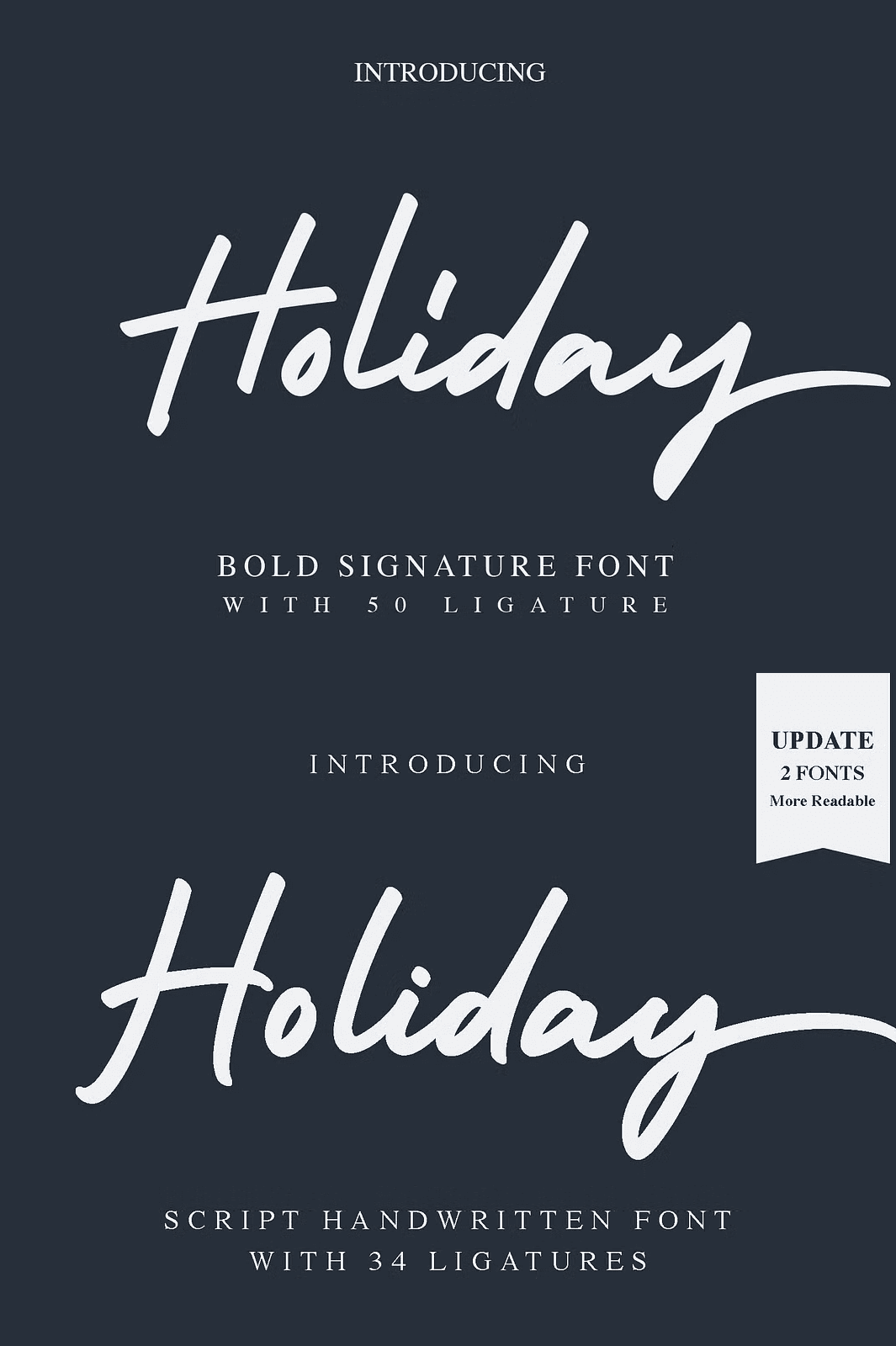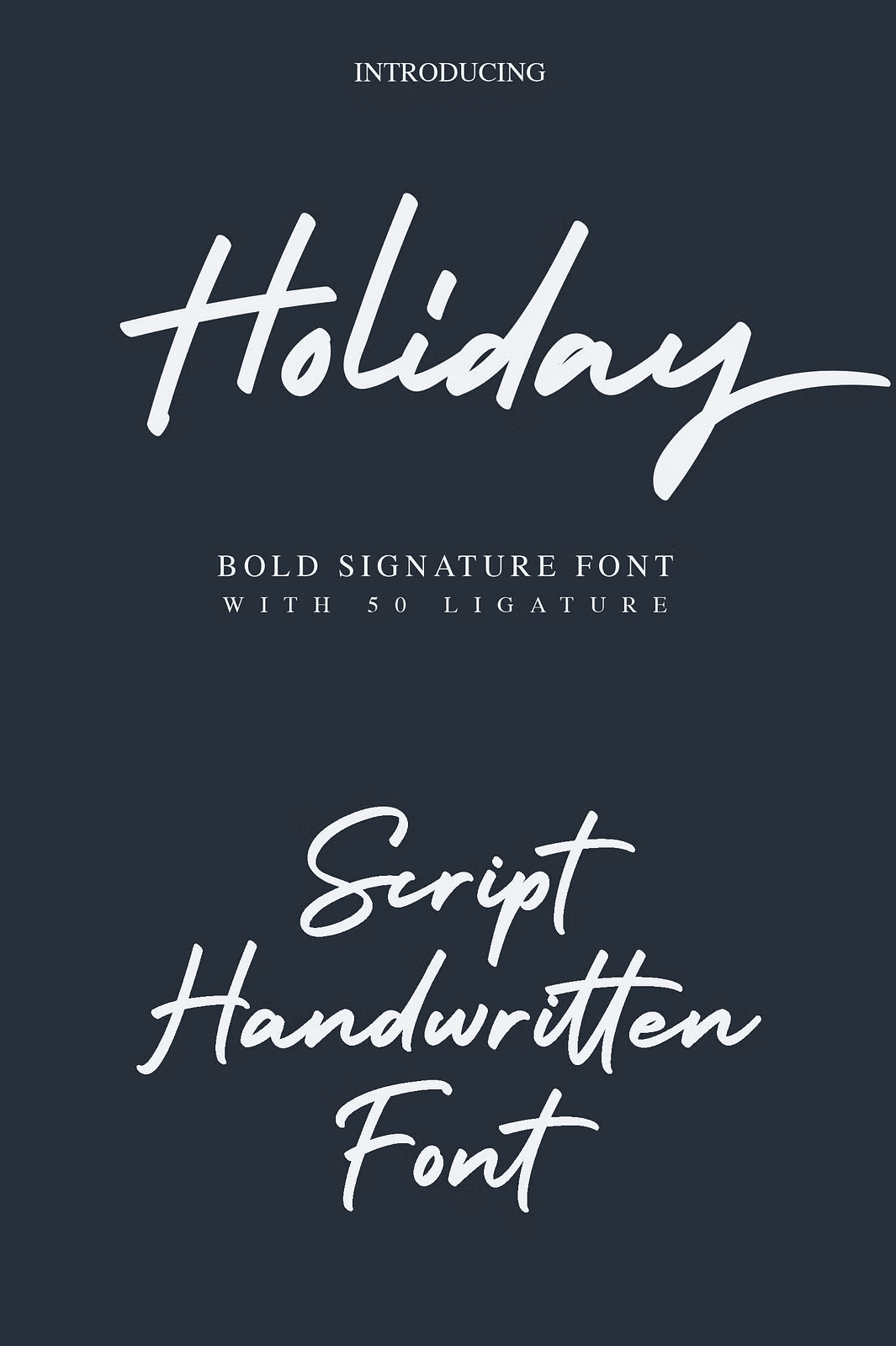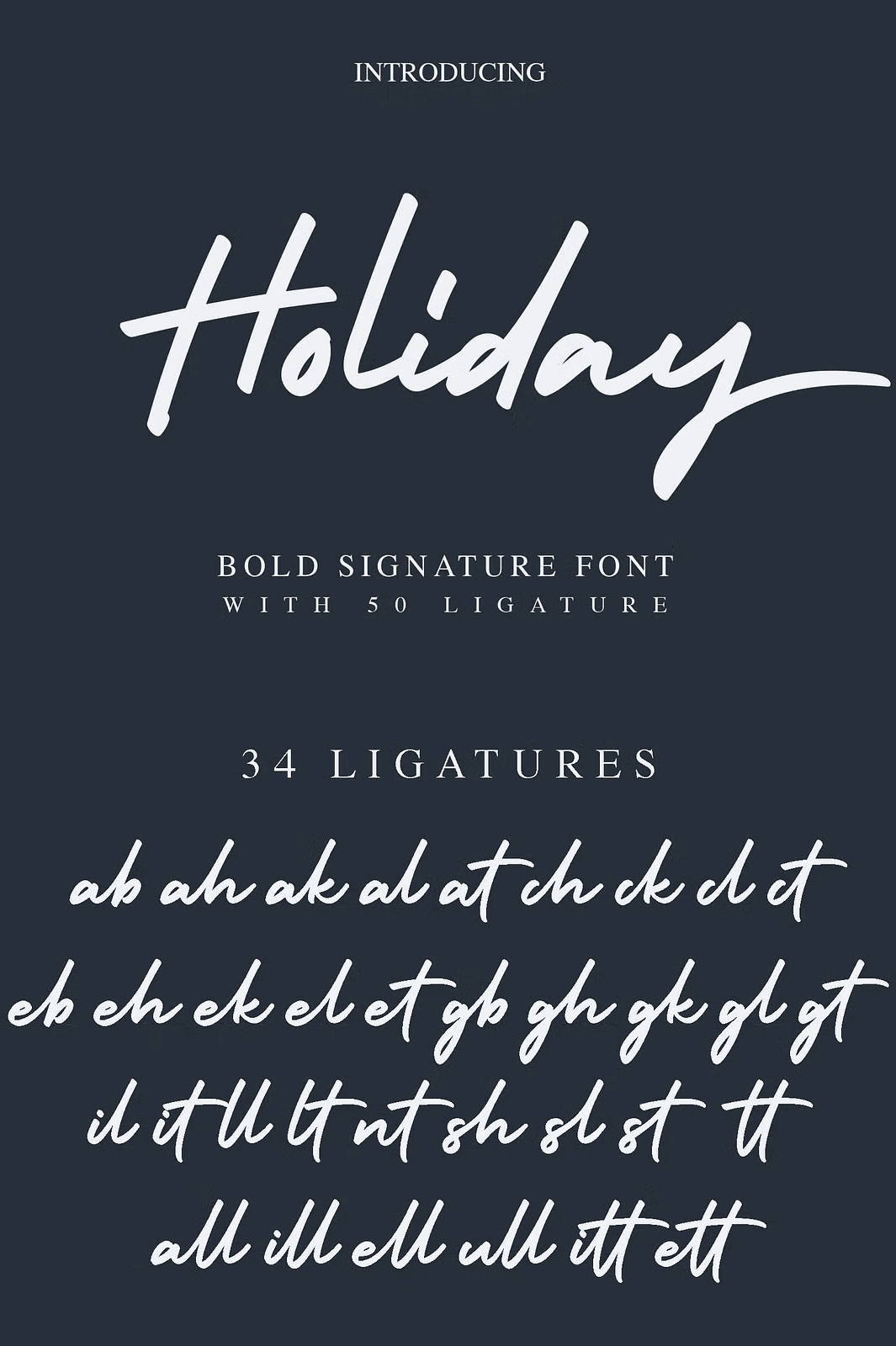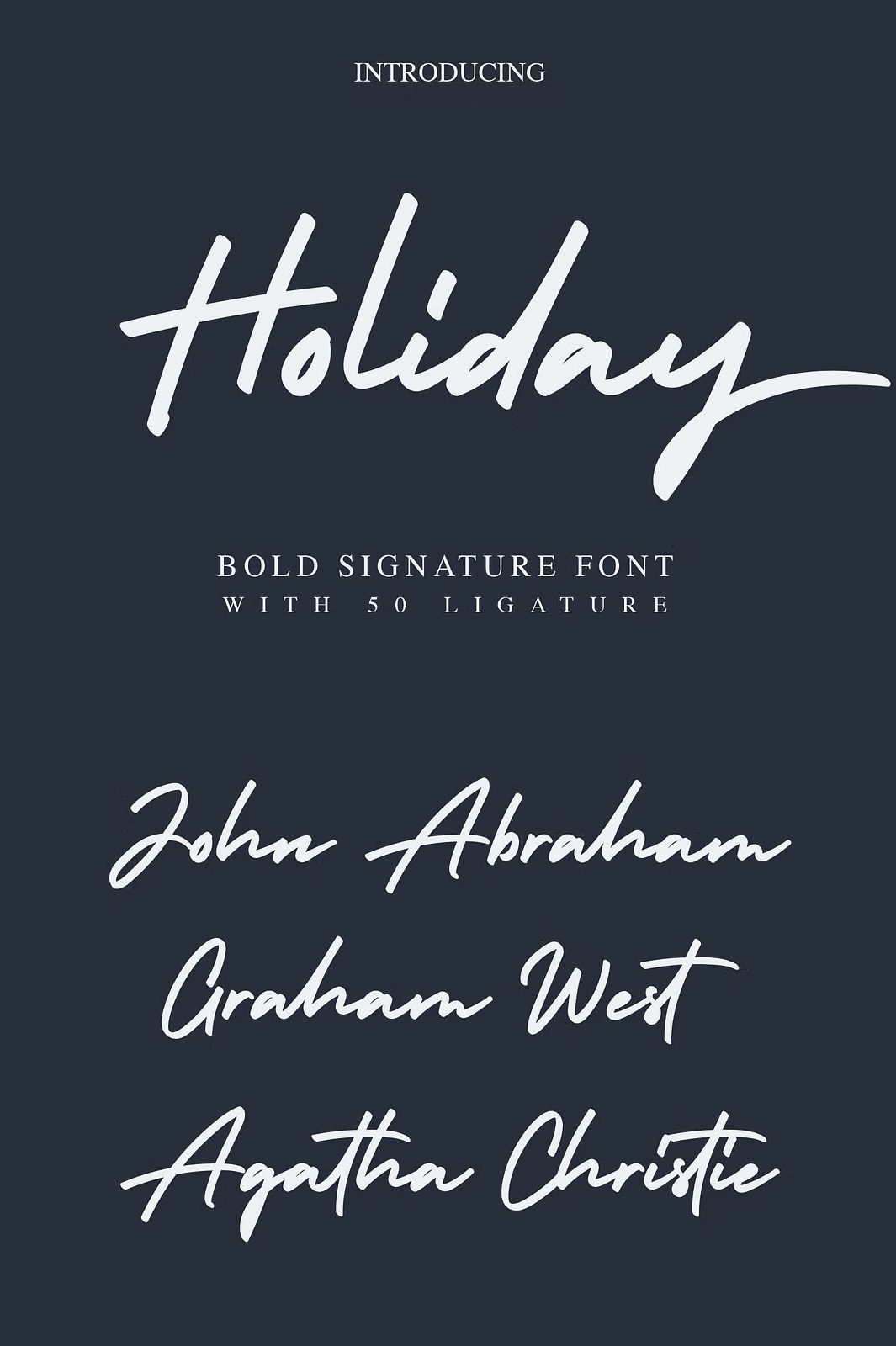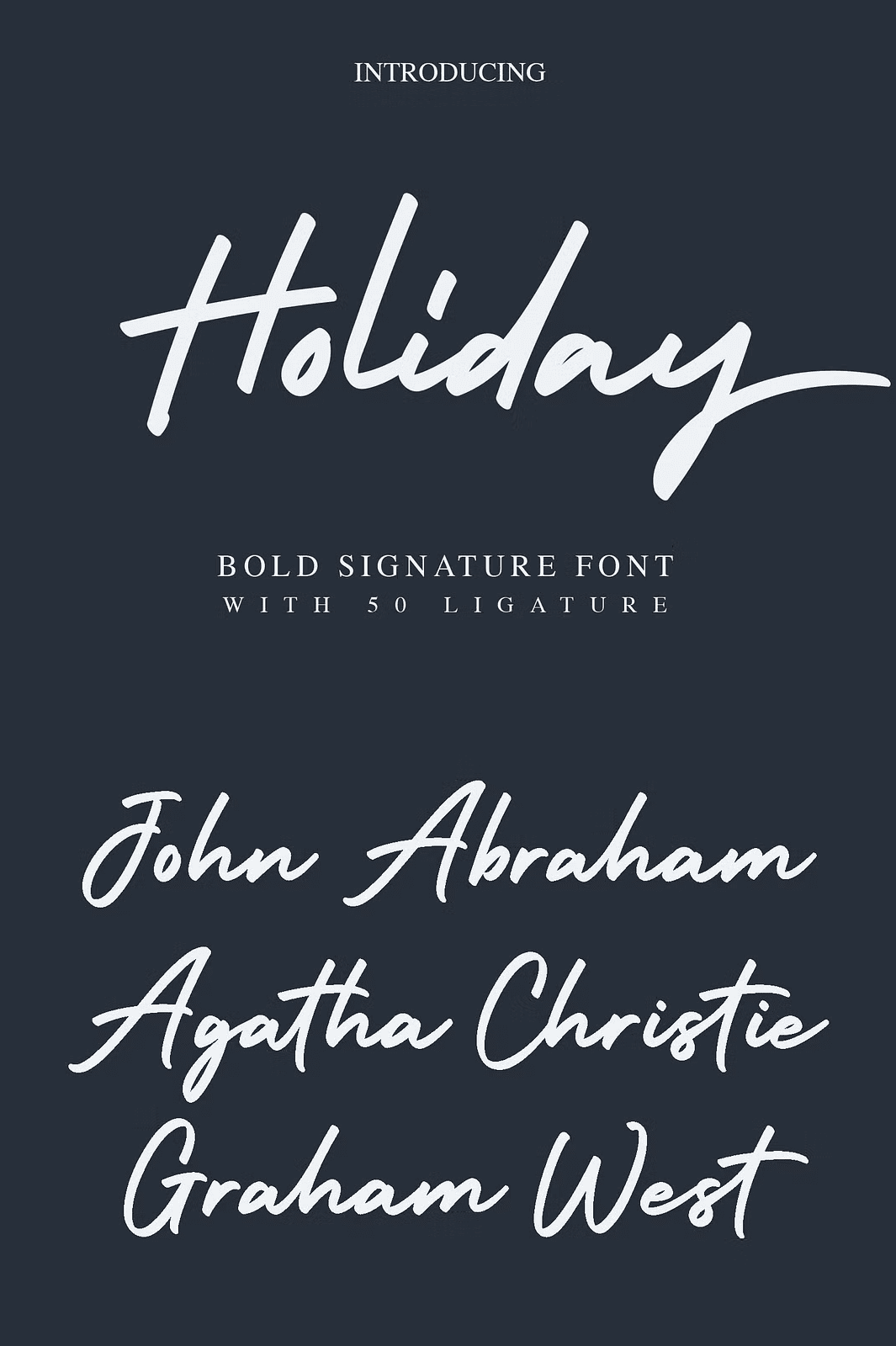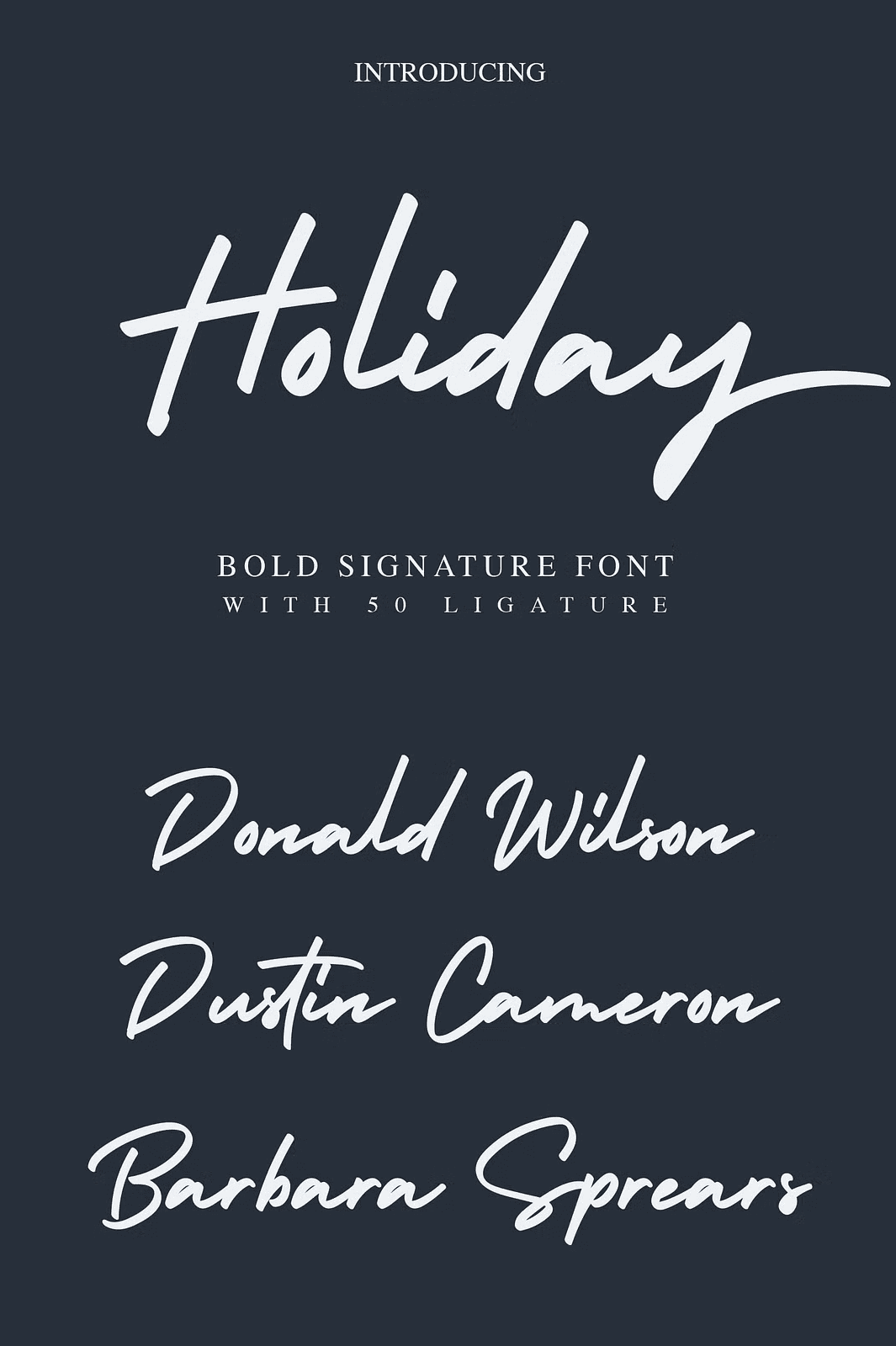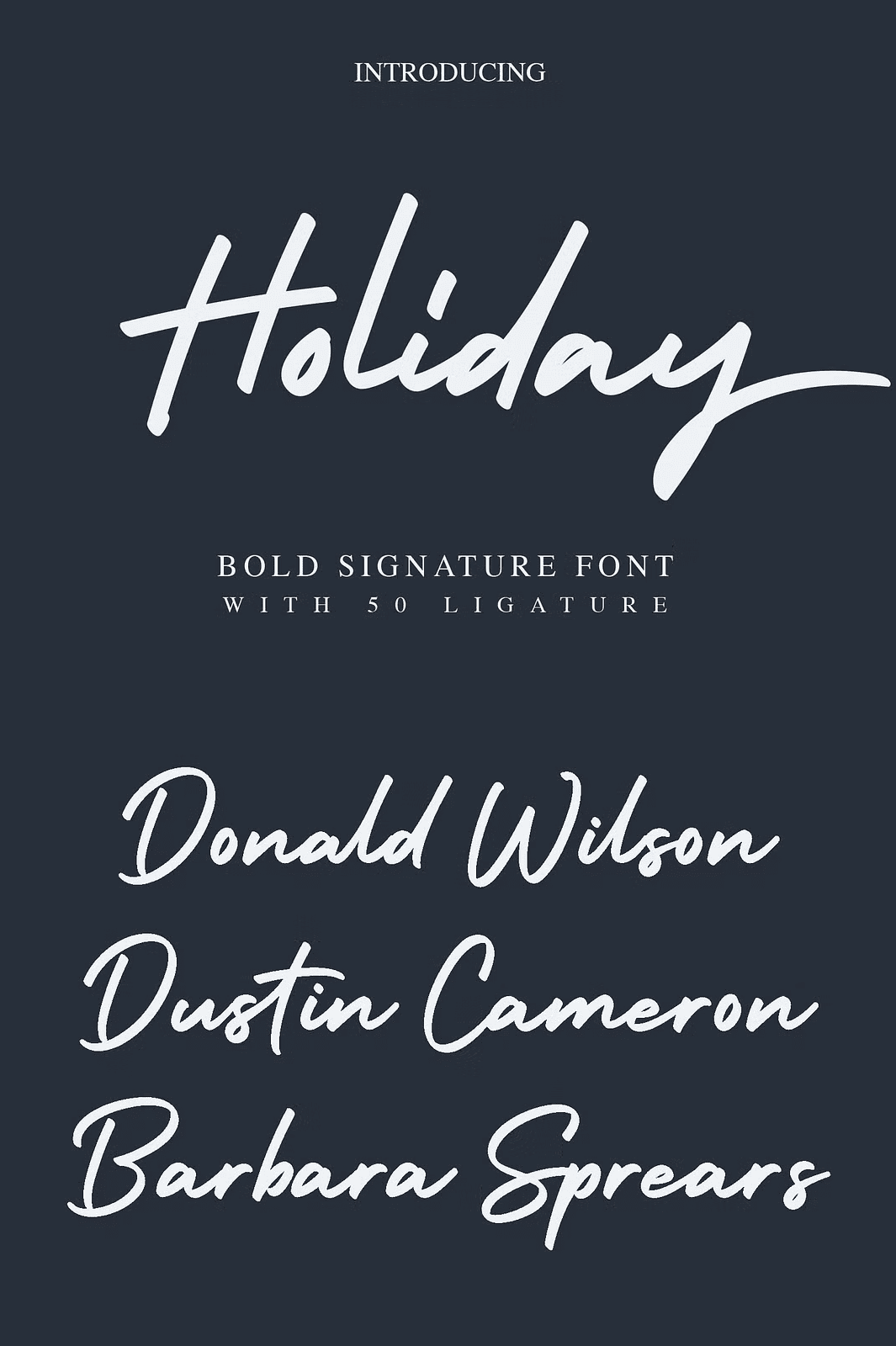
Experience the Evolution of the Beloved Holiday Font
Two years ago, we launched the original Holiday script handwritten font, and the response was overwhelming. Hundreds of designers embraced this cool and versatile font, making it a staple for their projects. Now, we are excited to present **Holiday2**, the upgraded version that perfects the original with enhanced readability, refined style, and clean design.
Holiday2 stands out as the best script handwritten font we’ve ever created. Its simple yet elegant style makes it an excellent choice for a wide variety of design uses, whether you’re crafting striking branding materials or adding a personal touch with a signature logo. This font brings everyday creativity to your fingertips, enhancing everything from album covers to business cards with a fresh, artistic flair.
Unleash Your Creativity with Holiday2’s Versatile Features
Holiday2 offers a comprehensive range of typographic elements tailored to meet professional standards. It includes:
– Uppercase and lowercase letters for dynamic text composition
– Alternative lowercase letters to add unique stylistic variations
– Numbers and punctuation marks for complete textual needs
– Extensive ligature support that creates smooth, connected letterforms
– Multilingual support ensuring versatility across languages
The font’s refined letterforms and clean lines enhance readability without sacrificing its elegant handwritten charm. This balance ensures your message will always be clear and impactful.
Perfect For a Wide Range of Design Applications
Holiday2 is an essential tool for designers working on projects requiring a personal yet polished handwritten touch. Use it creatively for:
– Professional branding and identity projects
– Watermarks on photography to protect your work with style
– Signature or logo designs that capture authenticity
– Inspirational quotes and social media graphics
– Eye-catching album covers and promotional materials
– Business cards that leave lasting impressions
No matter the medium, Holiday2 elevates your work to the highest creative level, helping you communicate with confidence and flair.
Why Choose Holiday2? Superior Design Meets Practical Usability
Holiday2 blends aesthetic beauty with functional design improvements. The cleaner, more legible letterforms make it ideal for projects needing clarity alongside artistic expression. This thoughtful enhancement means your designs will not only look beautiful but communicate effectively, grabbing attention and engaging your audience with a natural handwritten style.
Empower your creative projects with Holiday2. This upgraded script handwritten font offers elegance, readability, and versatility tailored to modern design needs. Don’t settle for ordinary when you can craft stunning, professional-quality work.
Pro tip for designers: Pair Holiday2 with clean sans-serif fonts to create contrast or use its alternative endings for an elegant finishing touch on your typography.